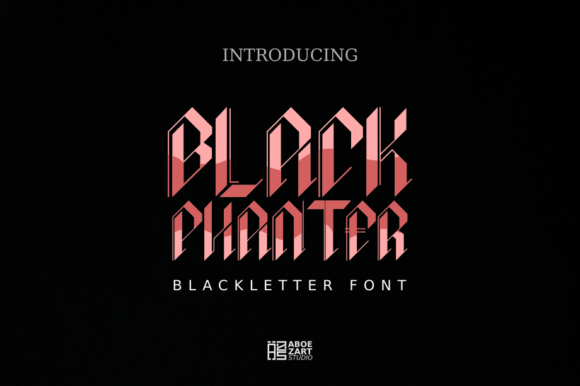
Venture into the world of typography with Black Phanter, a captivating blackletter font family that will add a touch of mystique and allure to your creative projects. Crafted by the skilled hands of AboeZart Studio, Black Phanter is a font of intrigue and power, embodying the spirit of the wild.
Unleash the Untamed Spirit:
Black Phanter is not just a font; it's an experience. Its bold strokes and sharp edges evoke a sense of adventure, calling you to explore the depths of your imagination. Whether you're designing logos, posters, or social media graphics, Black Phanter will leave an unforgettable mark on your audience.
Dare to be Different:
In a world saturated with ordinary fonts, Black Phanter stands out as a beacon of originality. Its unconventional letterforms and striking personality will make your designs shine. Embrace the unconventional and let Black Phanter set your work apart from the crowd.
Explore Endless Creative Possibilities:
With Black Phanter, your creativity knows no bounds. Its versatility extends across a wide range of design projects, from invitations and flyers to book covers and branding materials. Let your imagination run wild as you discover new ways to harness the power of this captivating font.
Feel the Thrill of Customization:
Black Phanter is more than just a font; it's a canvas for your artistic expression. Experiment with different colors, sizes, and effects to create a unique visual masterpiece. Let your designs reflect your individuality and leave a lasting impression on your audience.